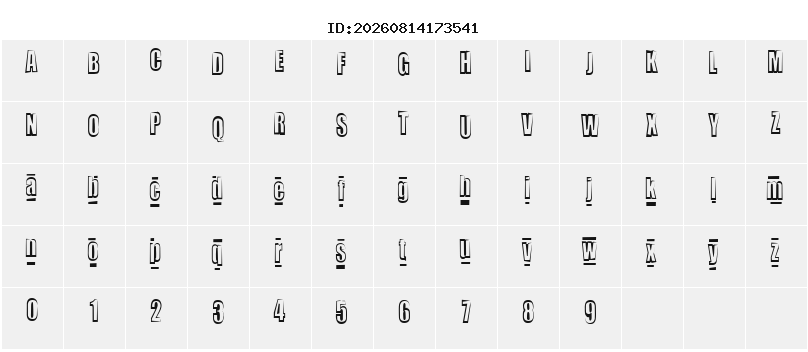
• Font Name: Boop
• Font Style: kin Boop Font
• Font ID: Alts:Stinkin Boop Font
• Full Font Name: Stinkin Boop Font
• Version: 1.0 Tue Aug 24 17:06:46 1999
• PostScript Name: Stinkin-BoopFont
• Character Count: 101
• Copyright: Created by Annie de la Vega for a dear friend Betty.
About Boop.ttf
Boop.ttf is a modern, elegant sans-serif font designed for ultimate readability and visual harmony. Perfect for branding, headlines, web design, and print materials.